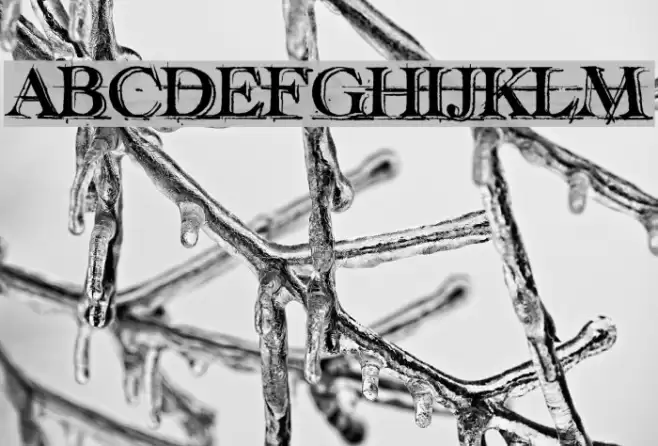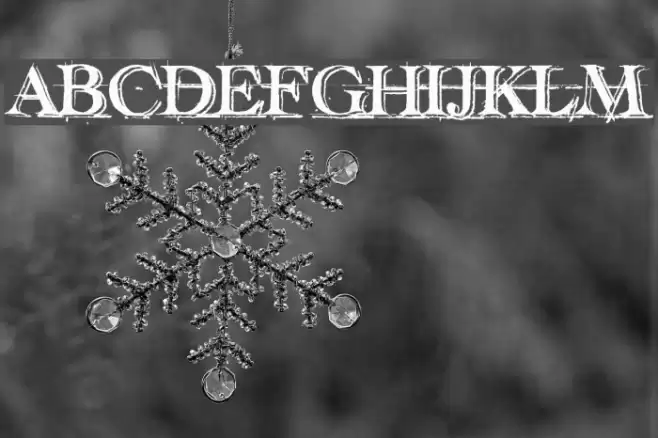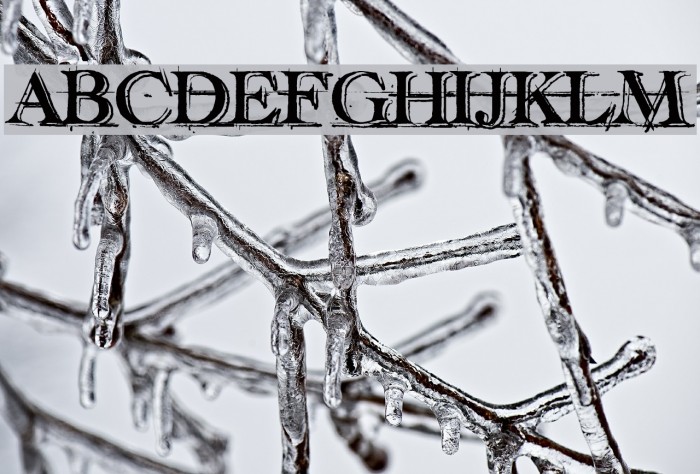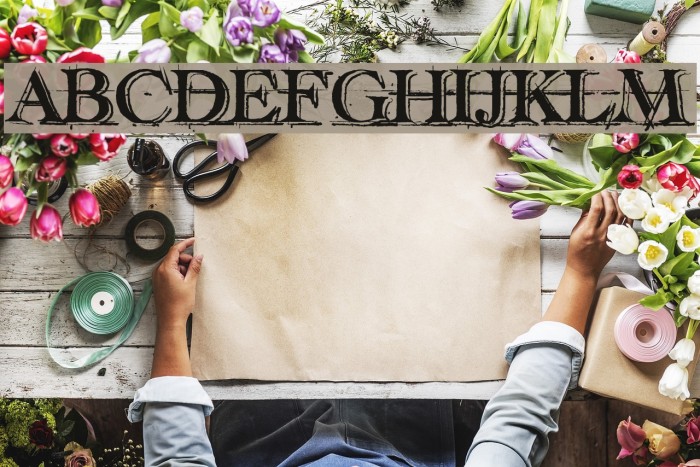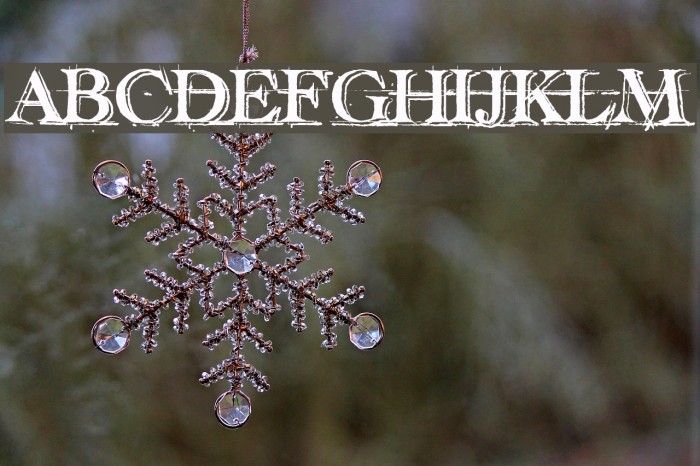
handwriting-draft-shaded demo Font
handwriting-draft-shaded demo Description
This font features a unique, hand-drawn aesthetic with a shaded, sketch-like appearance. The characters are bold and have a rough, textured outline that gives them a dynamic and artistic feel. The uppercase letters are distinct and have a slightly irregular form, adding to the handcrafted look. The shading within each letter provides depth and a three-dimensional effect, making the font stand out. This style is reminiscent of a draft or blueprint, with visible strokes and a slightly chaotic yet controlled design. It's perfect for projects that require a creative and unconventional touch.
A bold, hand-drawn font with a shaded, sketch-like appearance from Uncategorized fonts.
- Proposed Projects: Ideal for artistic projects, posters, album covers, and creative branding.
- Overall Style: Artistic, Handcrafted